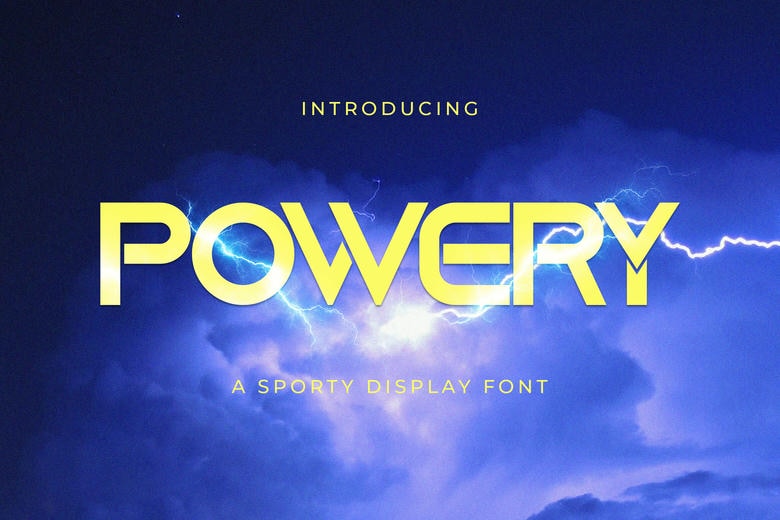
Powery Font
Powery is a sporting display typeface that has a bold and active look. Its bold letterforms and straightforward design form an impressive look and one cannot but notice that immediately.This font is ideal in logos, branding, posters, headlines, social media graphics, packaging and in modern typography projects.
Powery is a very active and assertive gaze that makes designs more effective and competent. The Powery gives it an added powerful and modern typography style which makes any design to shine with its smooth edges and sporty nature.
Powery Display Font